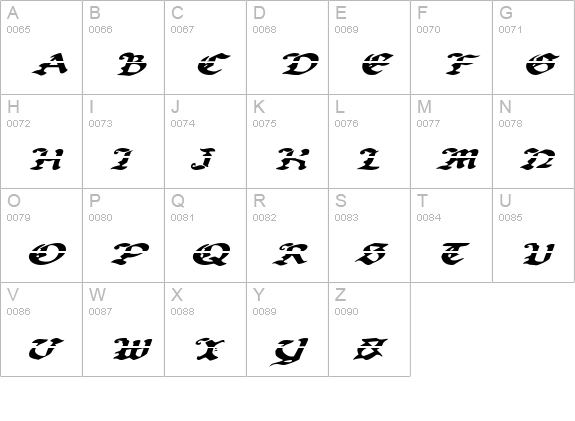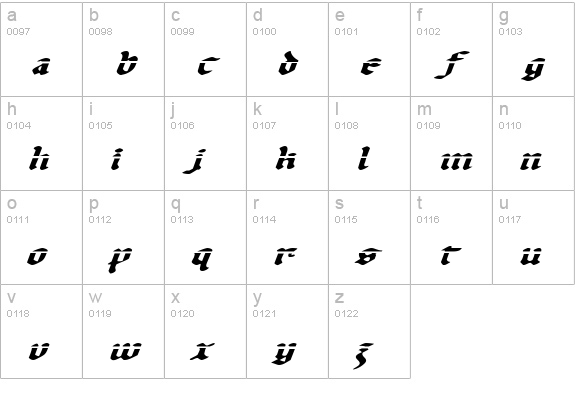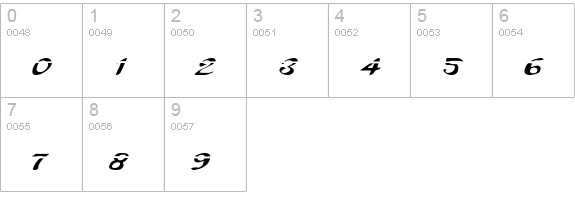
Uberhölme Lazar Expanded Italic is a distinctive, extended-width, italic variant in the Uberhölme typeface family \xE2\x80\x94 well suited to design and typography projects.
Uberhölme Lazar Expanded Italic font is a visually striking and modern typeface that effortlessly combines elegance with an edgy twist. Its unique and elongated letterforms exude a sense of sophistication, making it the perfect choice for projects that require a touch of class. The expanded italic style of Uberhölme Lazar adds a dynamic and energetic feel to any design, making it particularly suitable for branding, advertising, and headline purposes. Whether you're creating a logo for a high-end fashion brand or designing a sleek and contemporary magazine layout, this font is sure to make a powerful statement. What sets Uberhölme Lazar Expanded Italic font apart is its versatility. It can adapt to any context, seamlessly blending into both print and digital mediums. Its legibility remains uncompromised even at smaller sizes, ensuring that your message is conveyed clearly and effectively. One of the most appealing aspects of Uberhölme Lazar Expanded Italic font is that it is freely available to download at FontsMarket.com. This means that you can instantly access and utilize this captivating typeface in your projects without any cost. Whether you're a professional designer or a hobbyist, this font allows you to bring your creative visions to life without breaking the bank. In conclusion, Uberhölme Lazar Expanded Italic font is a visually captivating and versatile typeface that effortlessly combines elegance with an edgy twist. With its freely available download at FontsMarket.com, it offers you the opportunity to enhance your designs with a touch of sophistication and style, all without any financial burden. So go ahead and unleash your creativity with this exquisite font choice.